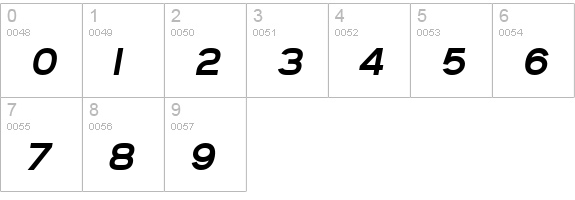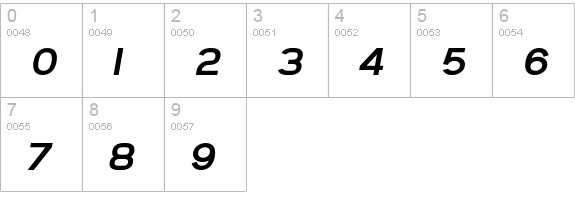
SF Arborcrest Heavy Oblique Font Details
SF Arborcrest Heavy Oblique is a heavy, high-impact, italic variant in the SF typeface family \xE2\x80\x94 well suited to high-impact headlines, posters, and display advertising.
The SF Arborcrest Heavy Oblique font is a bold and captivating typeface that effortlessly combines modernity with a touch of elegance. Its sleek and slanted appearance instantly grabs attention, making it the perfect choice for projects that require a strong and impactful visual presence. This font features thick and sturdy letterforms, giving it a sense of power and authority. Each character is meticulously designed, with sharp edges and clean lines that exude a sense of professionalism. The heavy oblique slant adds a dynamic flair, infusing your designs with a sense of movement and energy. SF Arborcrest Heavy Oblique is not only visually striking, but it is also incredibly versatile. Its boldness makes it an excellent choice for headlines, titles, and logos, where it can instantly grab attention and leave a lasting impression. Additionally, its legibility ensures that your message is conveyed clearly and effectively. One of the most remarkable aspects of SF Arborcrest Heavy Oblique is that it is freely available to download at FontsMarket.com. This means that you can access this exceptional font without having to worry about any cost restrictions. Whether you are a professional designer or a hobbyist, this font allows you to unleash your creativity without any limitations. With SF Arborcrest Heavy Oblique, you can effortlessly elevate your designs and make them stand out from the crowd. Its bold and captivating nature, combined with its availability as a free download, makes it an invaluable asset for any design project. So don't miss out on this incredible opportunity to enhance your creations with this stunning font. Head over to FontsMarket.com now and start exploring the limitless possibilities that SF Arborcrest Heavy Oblique has to offer.